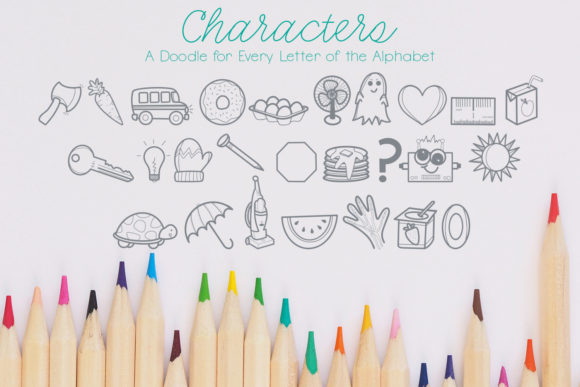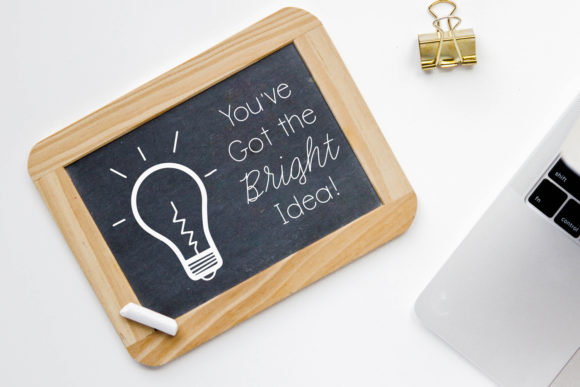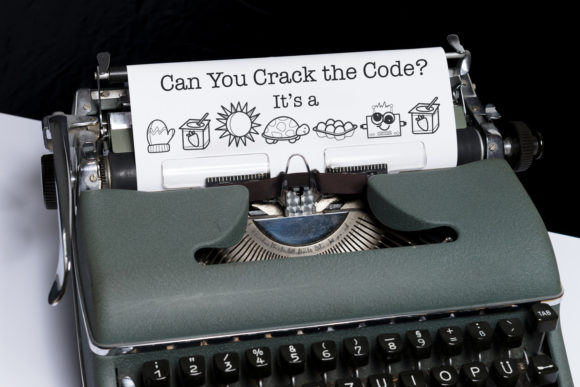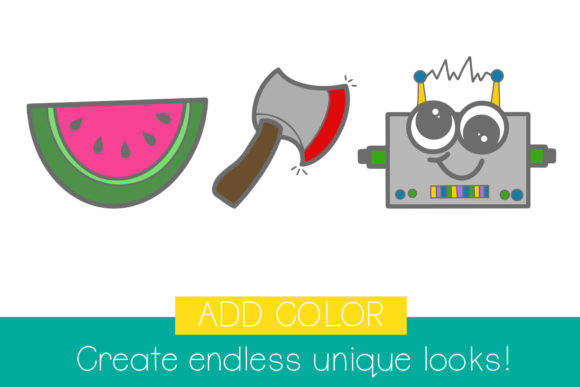
Unleash Your Inner Child with the Alpha Doodles Font
Who else remembers doodling in the margins of their notebooks as a kid, creating whimsical worlds with simple shapes and lines? For many of us, those carefree moments of creativity are etched in our memories as a source of joy and inspiration. As designers, we can tap into that same sense of wonder and playfulness with the right tools – and that’s where the Alpha Doodles Font comes in.
This adorable dingbats font is the perfect choice for any project that requires a dash of whimsy and authenticity. Whether you’re designing a children’s book, a school project, or a marketing campaign for a family-friendly brand, the Alpha Doodles Font is sure to bring your designs to life.
Alpha Doodles Font Key Features
- Font Family: Alpha Doodles is a unique, hand-drawn font that features a mix of modern and playful elements.
- Unique Characteristics: Features a distinctive, doodle-inspired design with varying line widths, subtle texture, and creative letterforms.
Alpha Doodles Font Review
Alpha Doodles Font is a unique and playful typeface that I’ve had the chance to work with. Here are my honest thoughts on its strengths and weaknesses.
- Customizability: Alpha Doodles Font offers a range of customization options, allowing designers to tweak the font’s look and feel to suit their specific needs.
- Fun and Whimsical: The font’s doodle-inspired aesthetic brings a touch of personality to any design project.
- Readability: Despite its playful nature, Alpha Doodles Font is surprisingly easy to read, making it suitable for a range of applications.
- Limited Character Set: The font’s character set is limited, which may make it difficult to use for longer blocks of text.
- Not Suitable for Formal Use: The font’s playful nature makes it better suited for informal or creative projects rather than formal or professional ones.
Overall, I think Alpha Doodles Font is a great addition to any designer’s toolkit. While it may have some limitations, its unique aesthetic and customizability make it a valuable resource for designers looking to add some personality to their projects.
Tips for Getting the Most Out of Alpha Doodles Font
1. Experiment with different font sizes and colors to create visual interest.
2. Combine Alpha Doodles Font with other fonts for a unique look.
3. Use it for headings and titles to create a bold and playful effect.
1. Social media graphics and posts.
2. Blog post headings and titles.
3. Marketing materials, such as flyers and brochures.
Alternatives to Alpha Doodles Font for Designers
Great Vibes is a modern, elegant script font that works well for headings, logos, and titles. It is perfect for creating a sophisticated and stylish look. Great Vibes Font is more refined and polished compared to Alpha Doodles Font, which makes it ideal for high-end designs.
Carolyna Pro is a beautiful, handwritten font that is great for creating a personal and artistic look. It is suitable for use in invitations, posters, and other creative projects. Compared to Alpha Doodles Font, Carolyna Pro has a more organic and natural feel, making it perfect for designs that require a touch of whimsy.
Alex Brush is a elegant, handwritten font that is great for creating a sophisticated and stylish look. It is perfect for use in logos, titles, and headings. Compared to Alpha Doodles Font, Alex Brush has a more refined and polished feel, making it ideal for high-end designs that require a touch of elegance.
Pacifico is a beautiful, elegant script font that is great for creating a sophisticated and stylish look. It is perfect for use in headings, titles, and logos. Compared to Alpha Doodles Font, Pacifico has a more refined and polished feel, making it ideal for high-end designs that require a touch of elegance and sophistication.